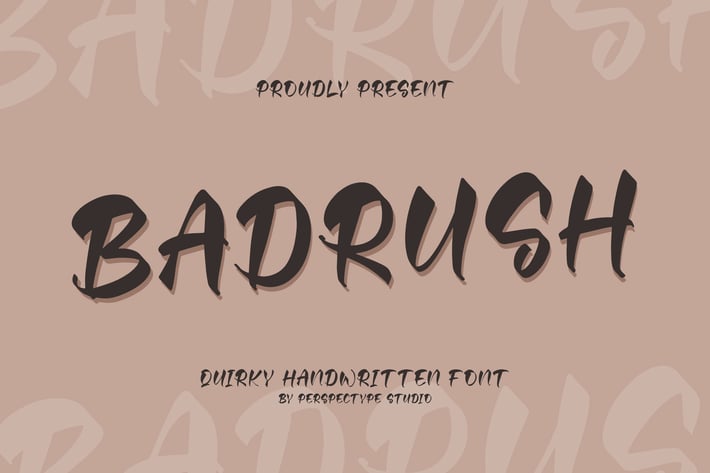
Badrush Quirky Handwritten Font
Badrush is a quirky handwritten font packed with bold personality and expressive strokes. Designed with rough, energetic curves and playful character forms, this typeface brings an adventurous handwritten vibe to any project. Its organic look makes it perfect for creatives who want a fun, lively, and eye-catching aesthetic.
Bold quirky handwritten style
Rough & energetic stroke details
Expressive letterforms with natural movement
Branding & logo design
Coffee shop menus
Social media quotes
Posters & casual promo designs
Kids & playful visuals
Merchandise design
Fun handwritten title layouts
Quirky, bold, and full of personality — Badrush brings lively handwritten energy to every creative project.